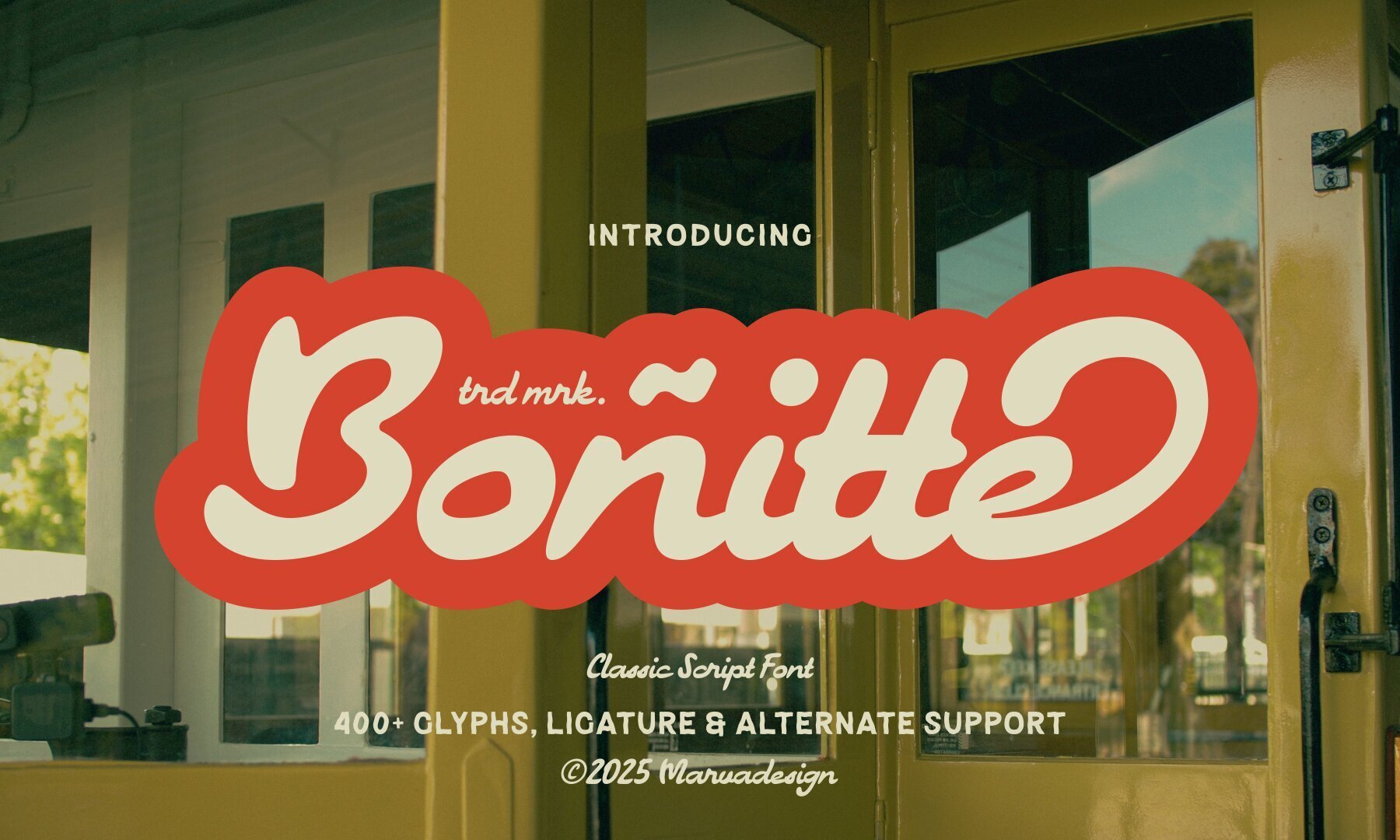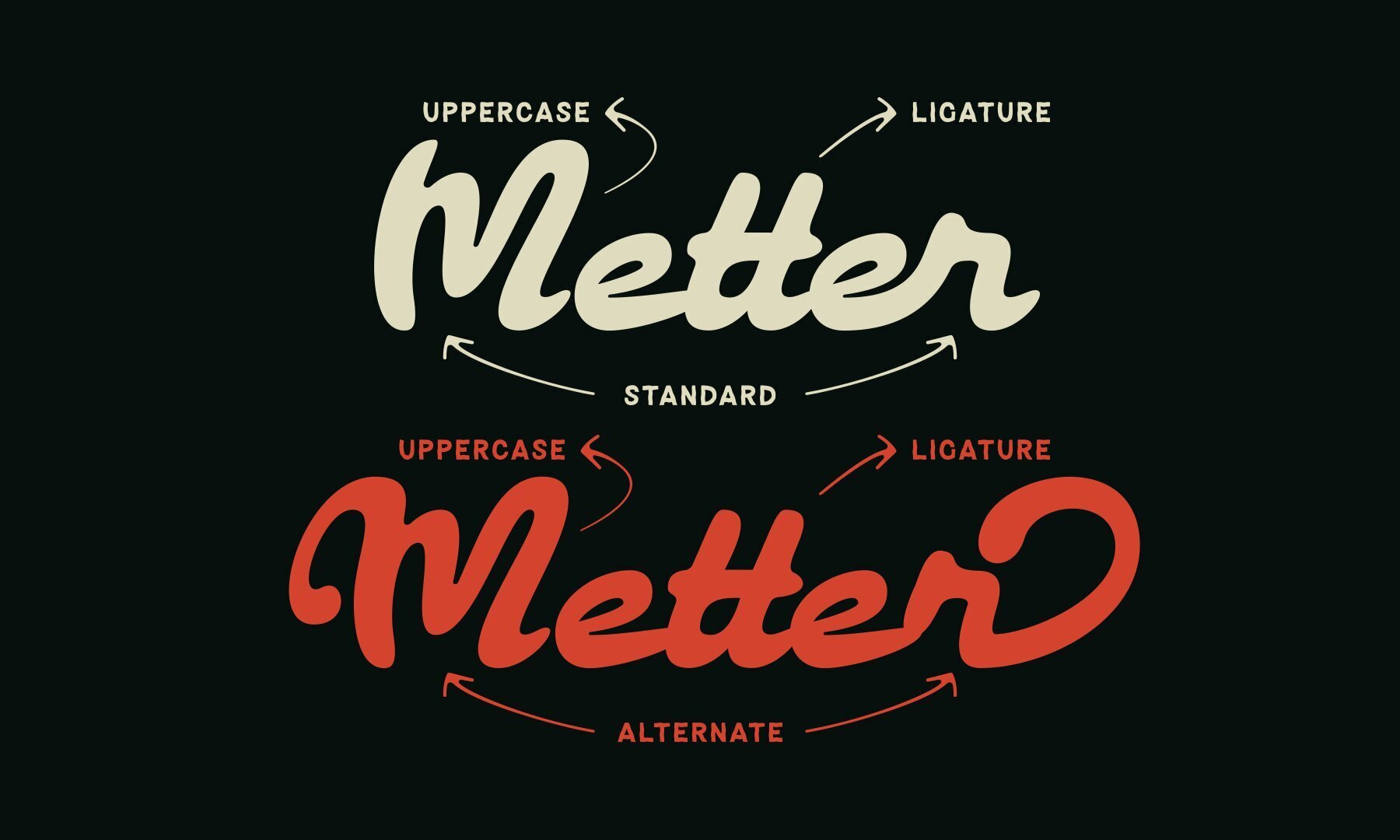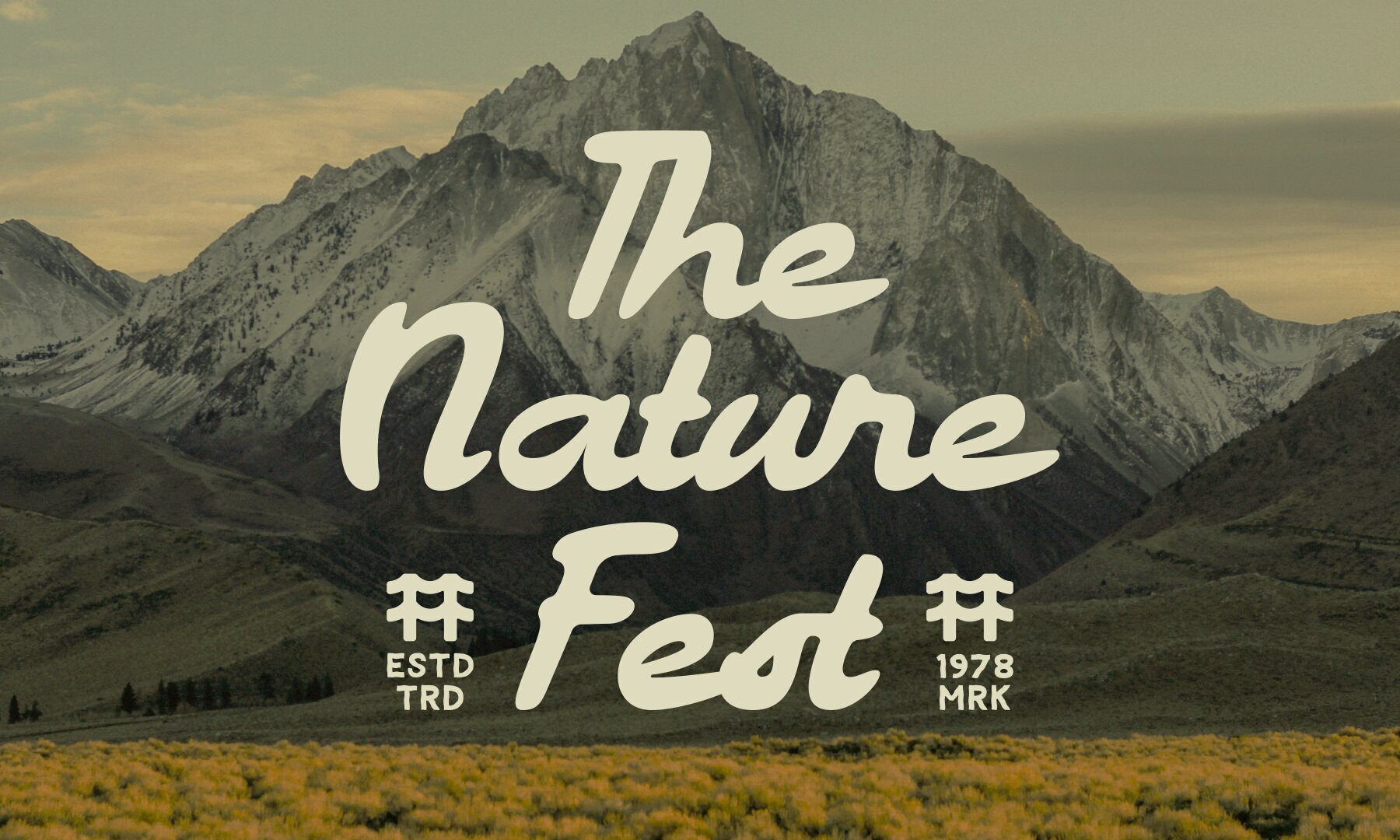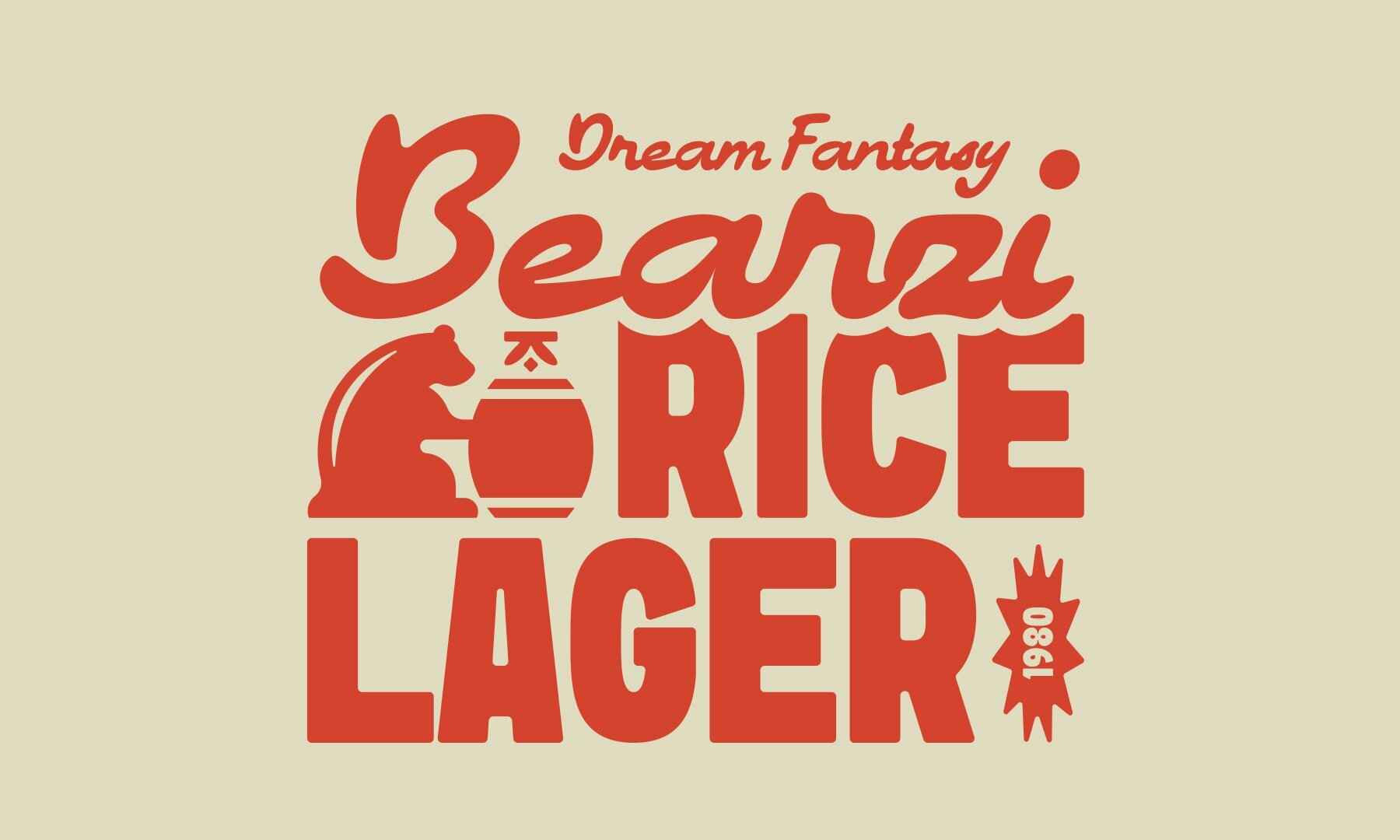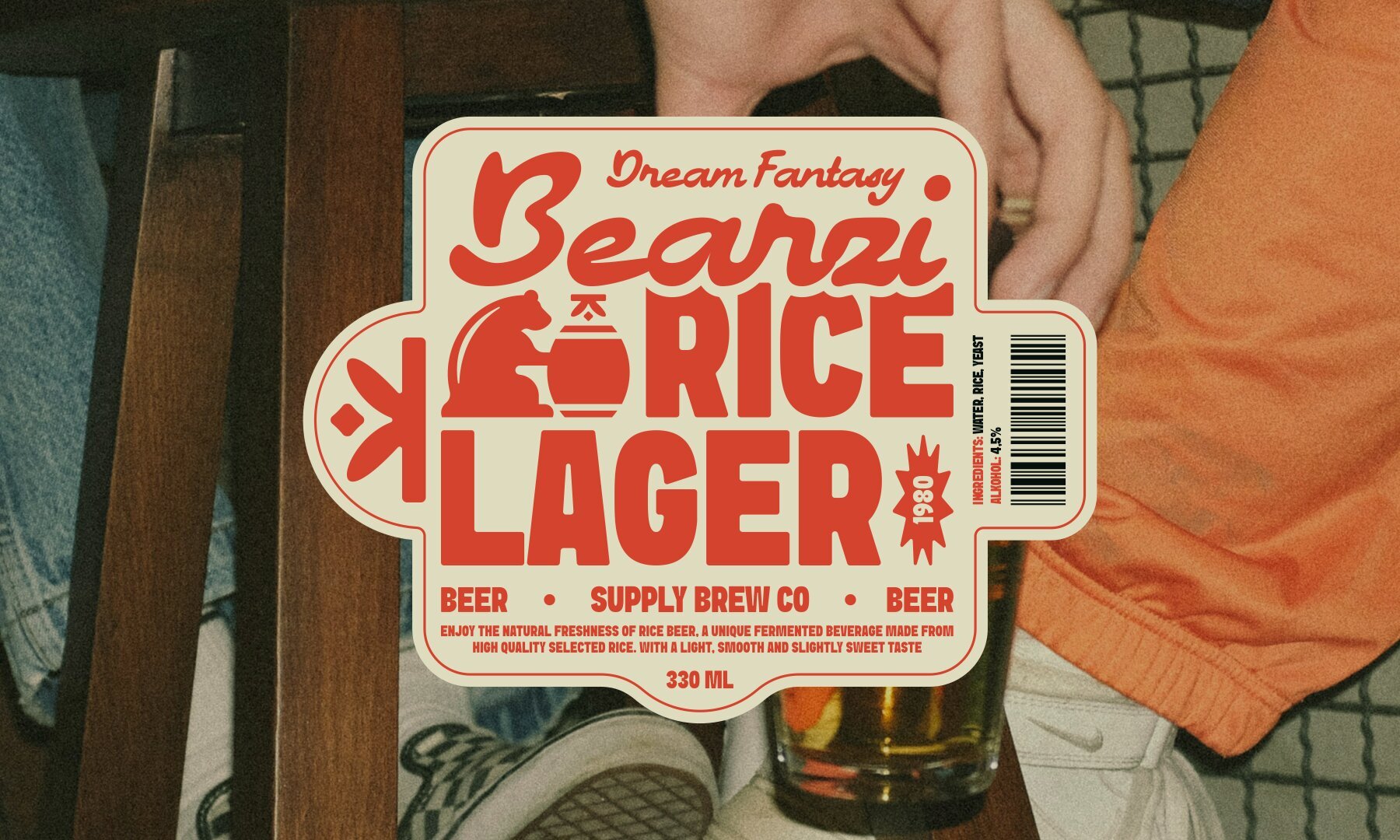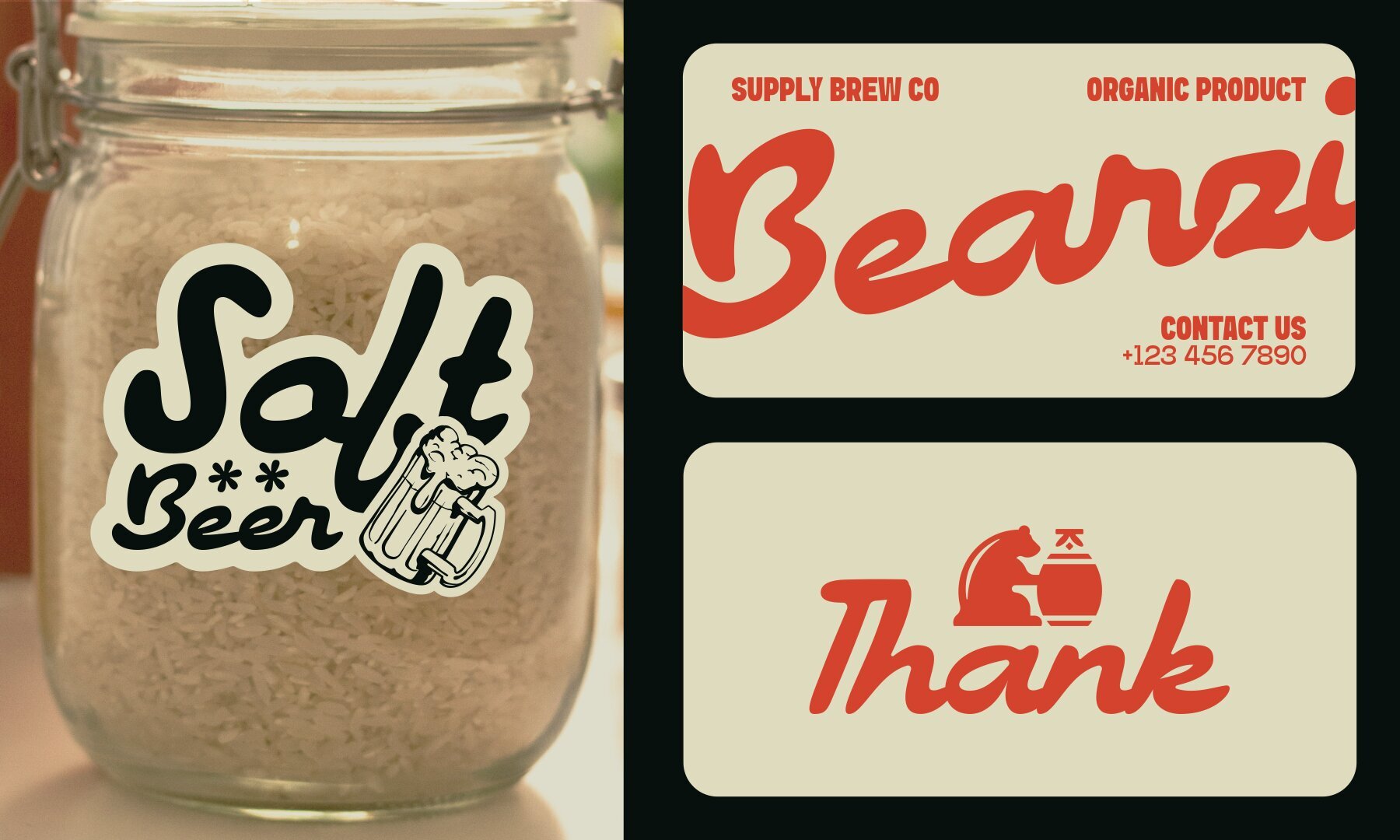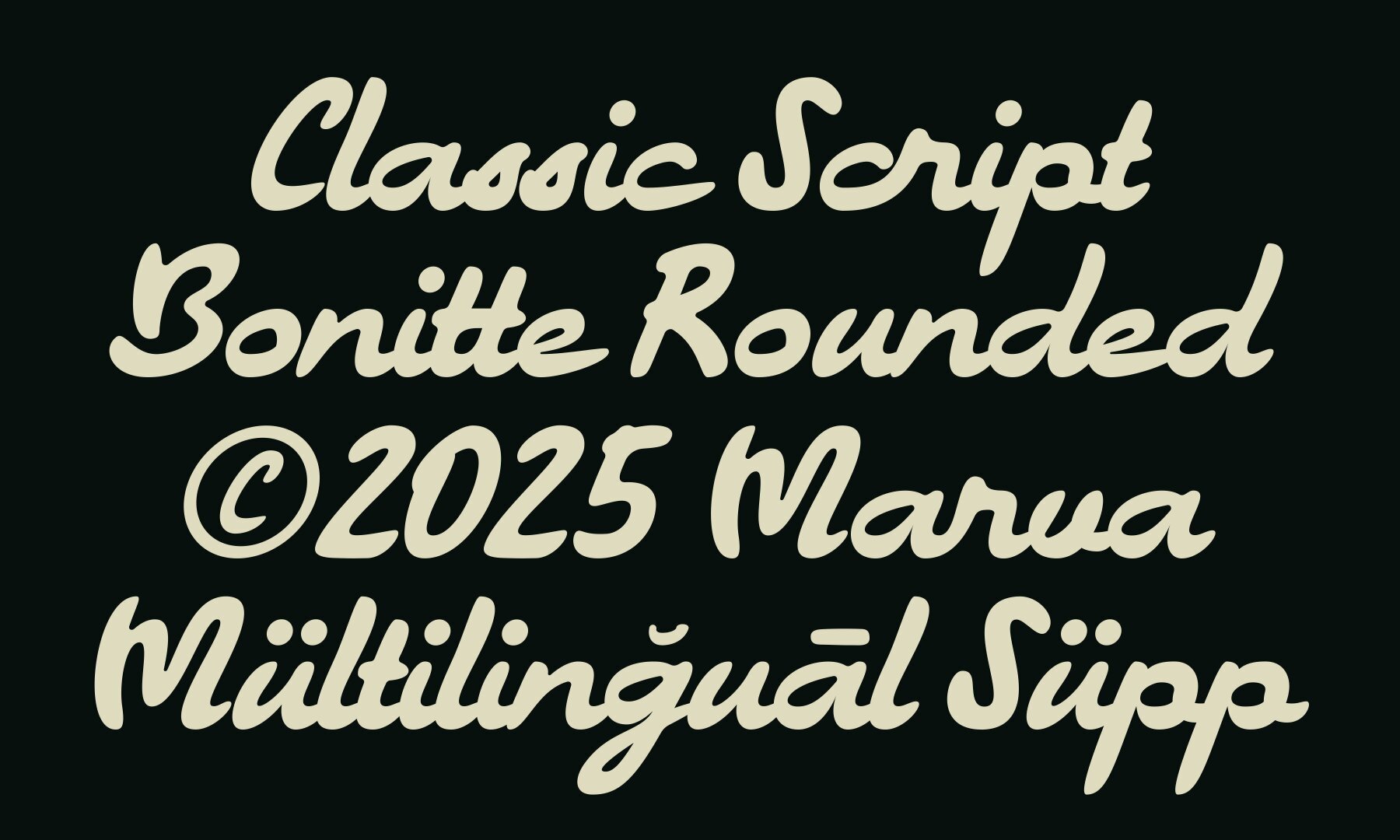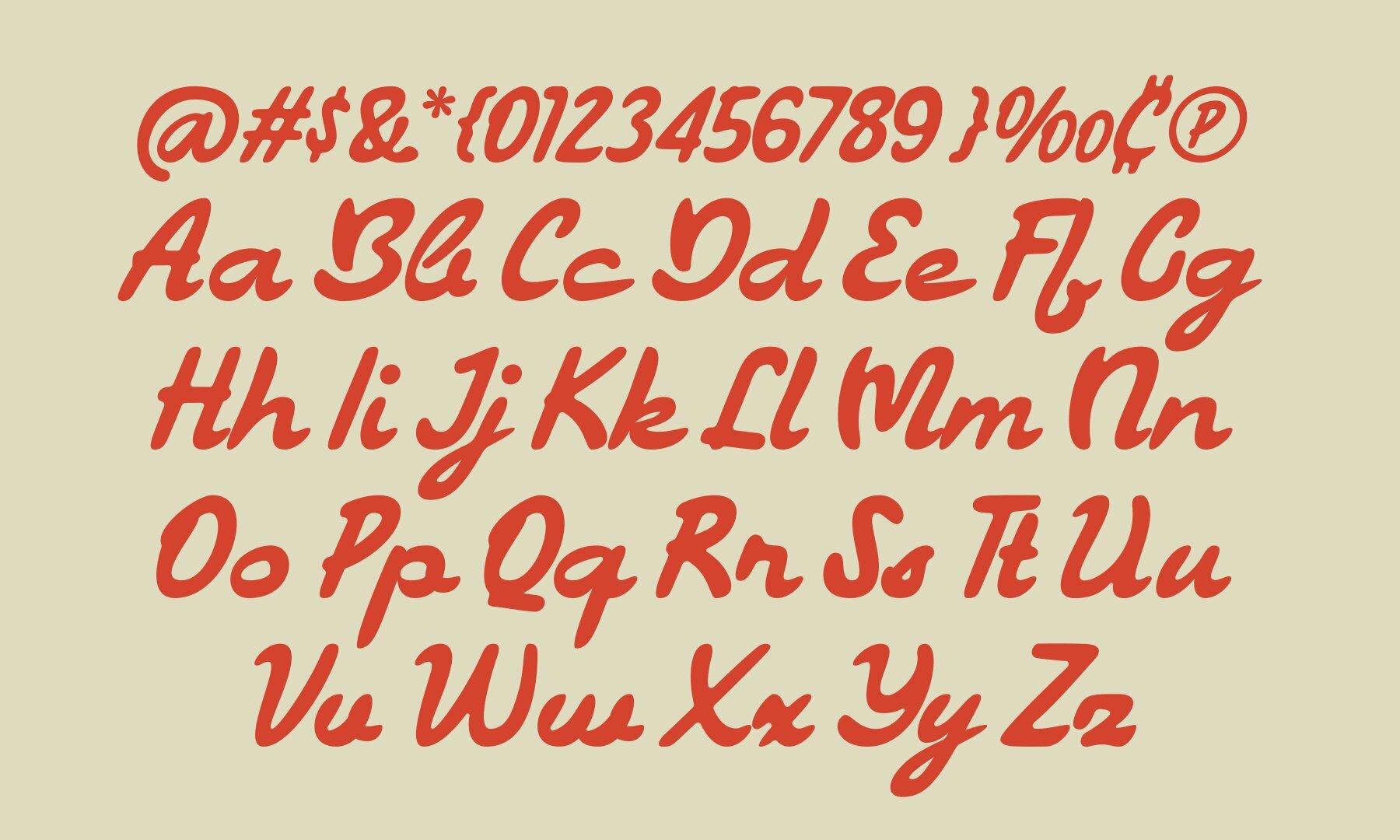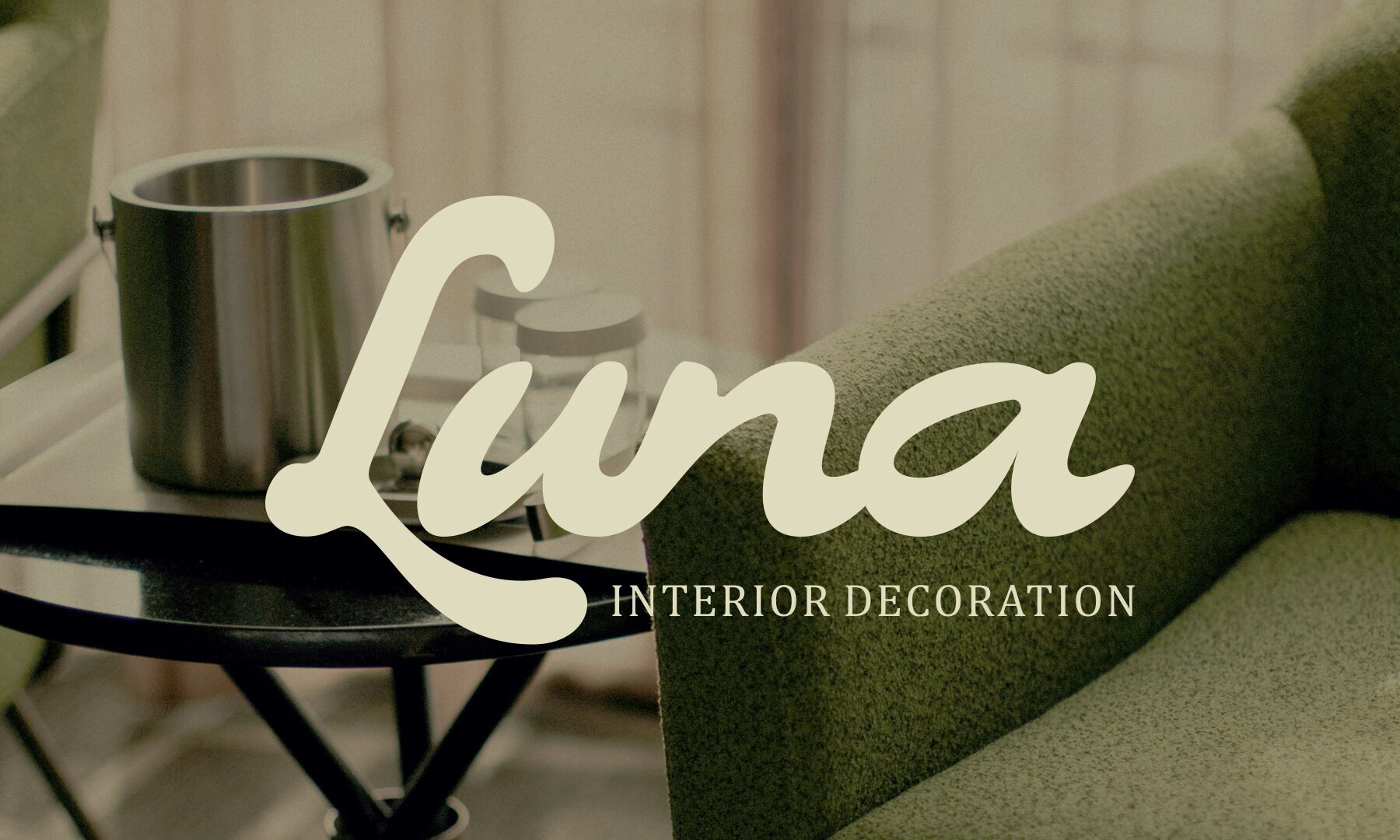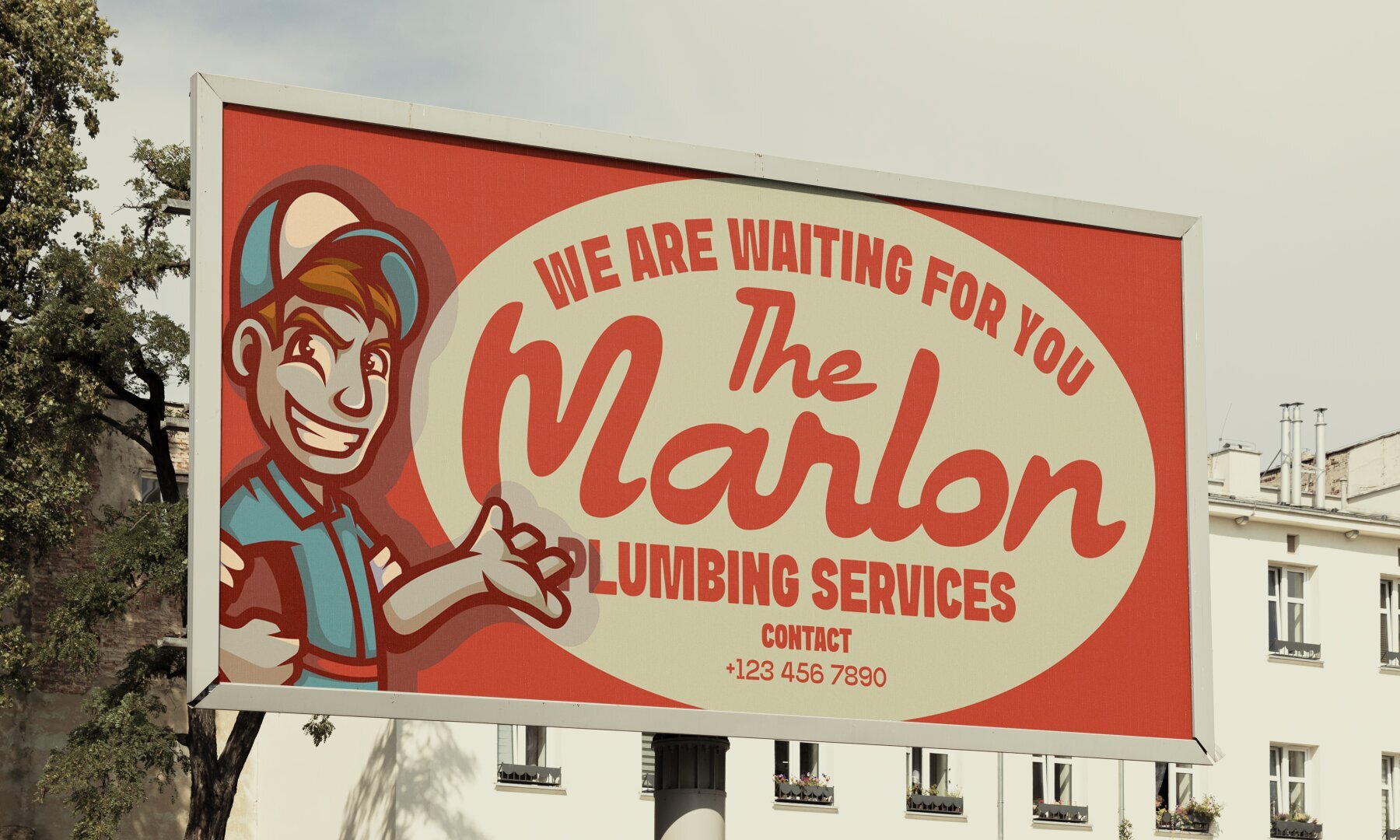
Bonitte Font
Bonitte
Bonitte Rounded offers a delightful blend of playfulness and elegance, perfect for capturing a nostalgic yet modern vibe. This classic script font, designed with smooth rounded strokes, infuses projects with a friendly ambiance. Its handwritten feel is enhanced by clean curves and thoughtful design, making it a versatile choice for a broad range of applications. Bonitte Rounded, crafted with precision, embodies elegance and approachability in one beautiful typeface.Bonitte Rounded: A Nostalgic Script With Modern Flexibility